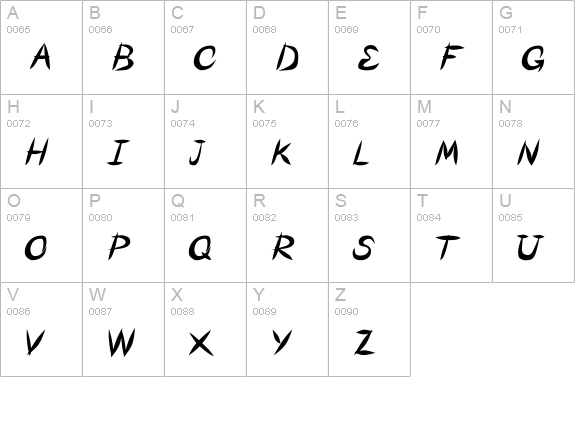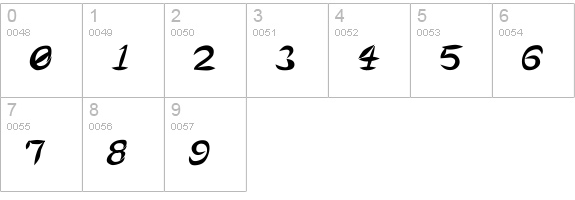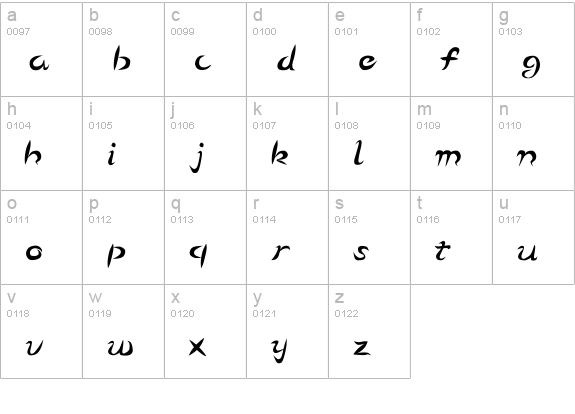
SMPaintingX Font Details
SMPaintingX font is a visually striking typeface that effortlessly captures the essence of artistic expression. Its bold and fluid brush strokes create a sense of movement and energy, making it the perfect choice for projects that require a touch of creativity and passion. This font is not only visually captivating but also versatile, as it can be used for a variety of design purposes, including logos, branding, posters, and more. Its unique and distinctive style adds a sense of authenticity and originality to any project. One of the best aspects of SMPaintingX font is that it is freely available to download at FontsMarket.com. This means that designers and creatives can easily access and utilize this stunning font without any financial constraints. Whether you're a professional designer or a hobbyist, this font is a valuable addition to your creative toolkit. With SMPaintingX font, you can effortlessly elevate your design projects to new heights. Its expressive and dynamic nature allows you to communicate your message with more impact and creativity. Whether you're aiming for a bold and edgy aesthetic or a more refined and elegant look, this font has the versatility to adapt to your vision. Let SMPaintingX font be the paintbrush that brings your imagination to life. Download this free font at FontsMarket.com and unlock a world of artistic possibilities. Embrace the freedom of expression and create designs that are truly one-of-a-kind. With SMPaintingX font, the only limit is your own creativity.